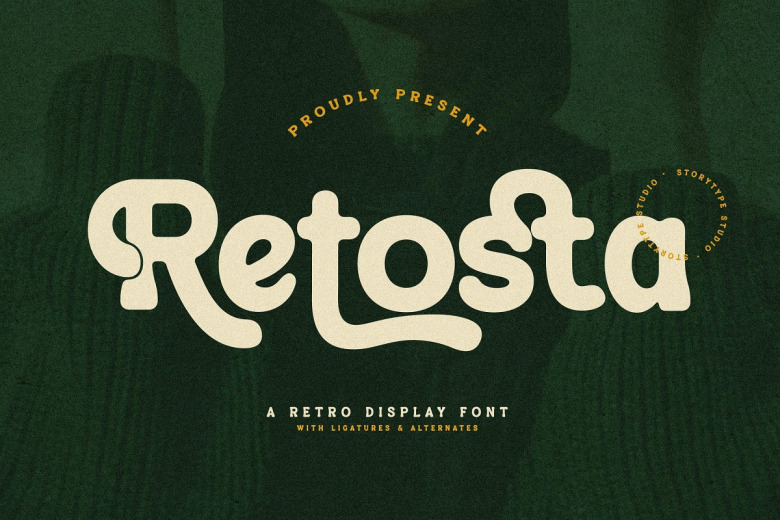
Retosta Font
Retosta is a stylish retro display font which has an elegant. This font is suitable for branding, logos, labels, posters and everything else that needs a sleek and retro look.
Retosta Retro Display Font